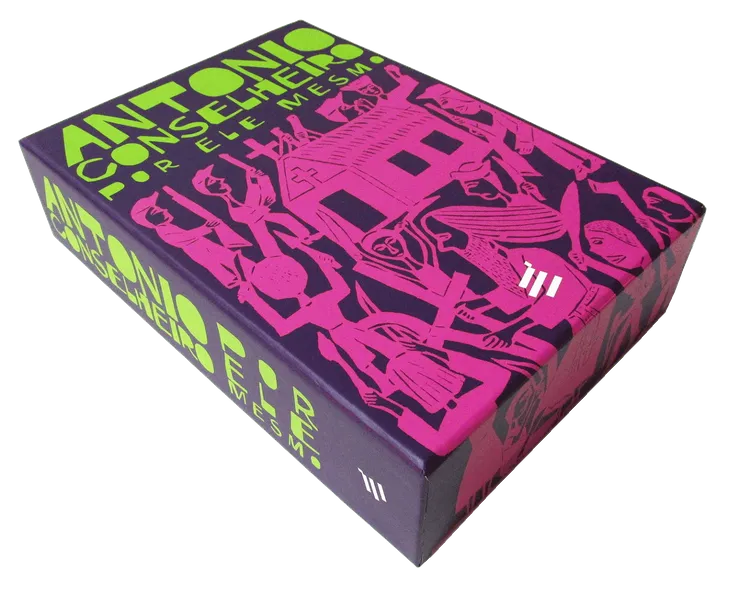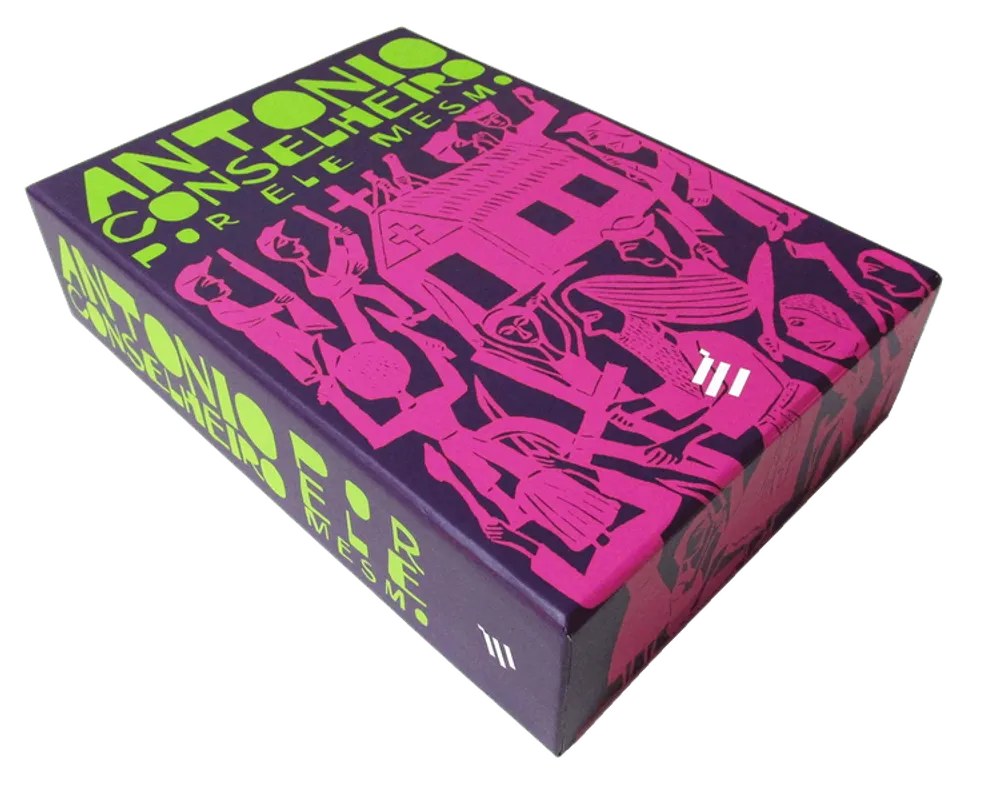
Antonio Conselheiro
Granz font, which is inspired by the iconic Oscar Peterson’s Porgy & Bess album cover, is used all over the covers of this beautiful book set. All covers by the talented – and awarded – designer Daniel Justi.